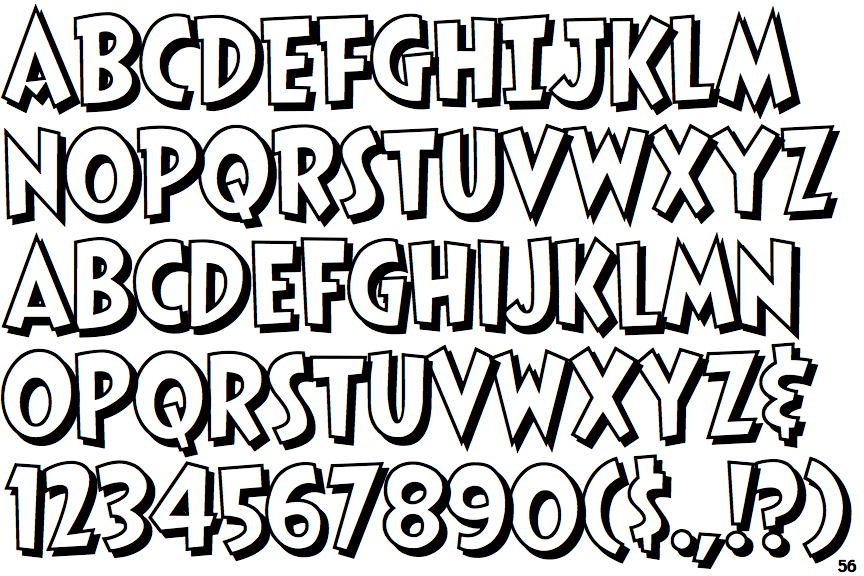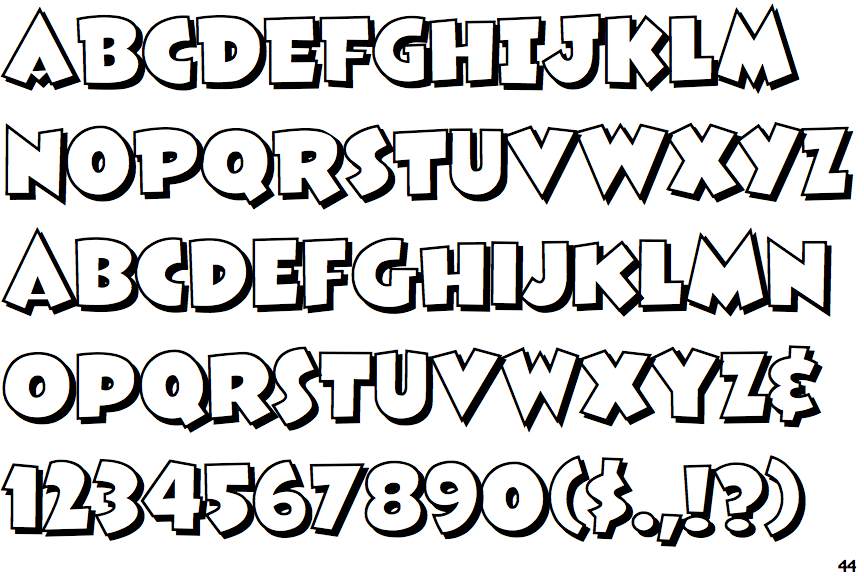
That's All Folks Outline Bold Font
Remastered that’s all folks now has inline weights (regular & bold. The quick brown fox jumps over the lazy dog.
Run amuck and head on down to toon town with us to enjoy some madcap laffs with our latest frolicking font, 'that's all folks'.
That's all folks outline bold font. It's good, clean family fun for all your favorite comic cuts and looney'toons! Available for e book use. Available for digital ad use.
#1 add to the head section of web page. Run amuck and head on down to toon town with us to enjoy some madcap laffs with our latest frolicking font, ‘that’s all folks’. This font has designed by jayvee d.
The outline version turns up the fun factor by adding a drop shadow. Licensed for personal and commercial use. Download thats all folks outline bold font.
Includes new inline regular and bold weights, western european accents, and crossbar i. The glyph for ffl replaces the sequence of glyphs f f l. Information about the font thats all folks outline bold and where to buy it.
That’s all folks outline bold font: Run amuck and head on down to toon town with us to enjoy some madcap laffs with our latest frolicking font, 'that's. Thats all folks outline bold font.
Thats all folks outline bold: It’s good, clean family fun for all. That’s all folks outline bold.